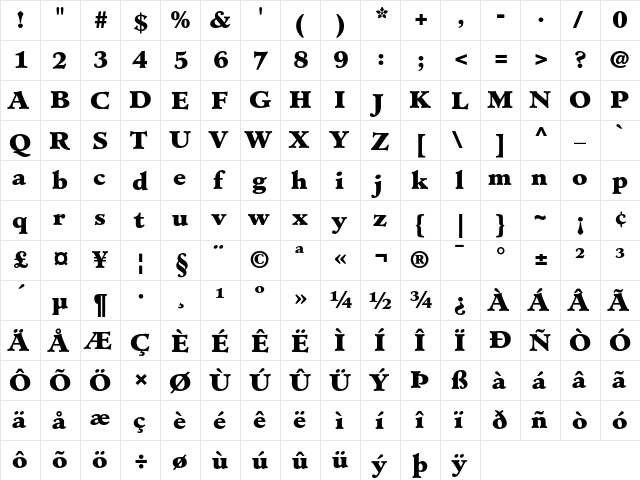
Minister Black
Design Context for Minister Typeface
Minister is a composed and adaptable typeface that performs quietly and consistently across a wide range of design contexts.